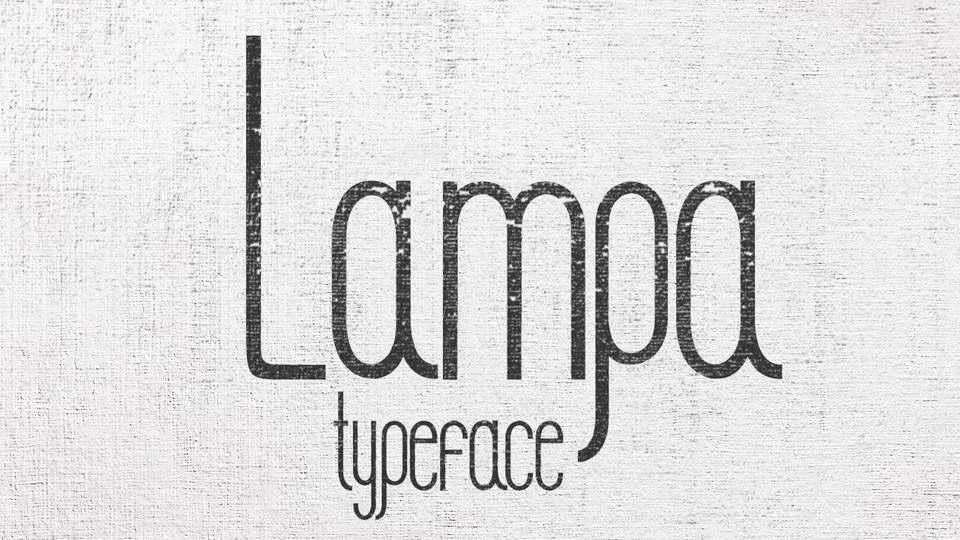
Download Lampa font, an extra narrow hipsta typeface with retro feel. Lampa font is suitable for logos, branding, menu and brochures, banners, social media and more.
Designer: Slava Krivonosov